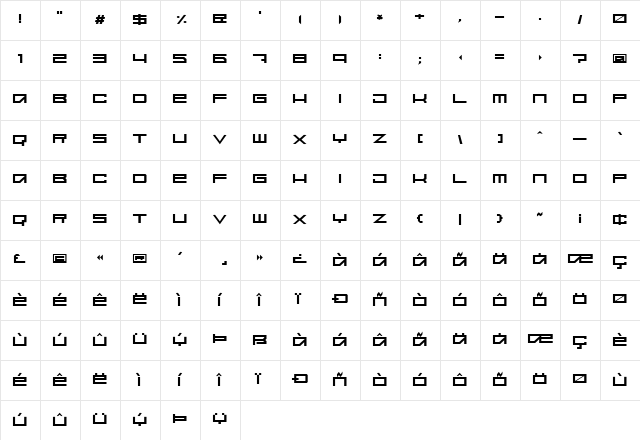
SpaceMonkey Normal Font Preview
SpaceMonkey Normal
SpaceMonkey Normal Font Details
Design Context for SpaceMonkey Typeface
SpaceMonkey is a composed and adaptable typeface that performs quietly and consistently across a wide range of design contexts.
Pro Tip: Pair SpaceMonkey with a font of contrasting weight or personality to build a more expressive typographic hierarchy.